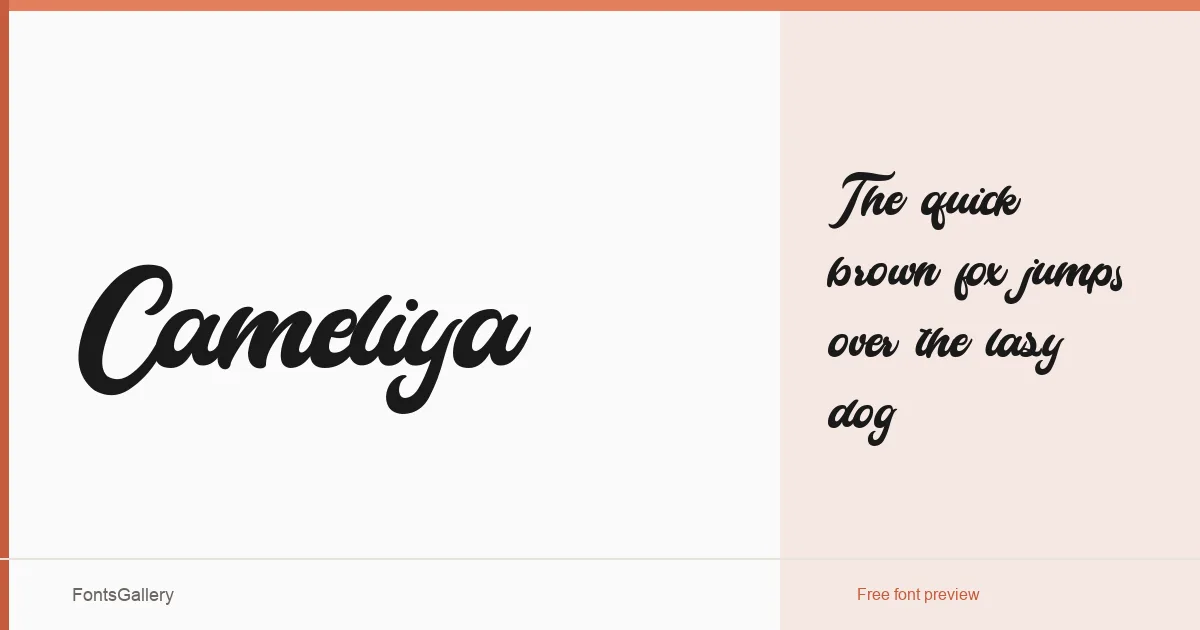
About Cameliya Font
Cameliya is a script typeface from StringLabs that exudes elegance and timeless charm. Rooted in a romantic and vintage sensibility, this font brings a classic sophistication to any design project. Its flowing letterforms make it a standout choice for creatives seeking refined, expressive typography.
Cameliya features graceful, fluid script letterforms that evoke a sense of old-world romance and classic beauty. The elegant curves and vintage-inspired strokes give each character a handcrafted, intimate quality that feels both refined and warmly personal. This typeface strikes a careful balance between decorative flair and legible structure, making it as functional as it is beautiful.
Cameliya is ideally suited for wedding stationery, invitation cards, logos, and branding projects where an elegant and romantic tone is desired, as well as social media graphics that call for a touch of classic sophistication. For a harmonious typographic combination, pair Cameliya with Aresink for an all-script editorial feel, or with Helvetica to create a striking contrast between its ornate flourishes and clean, modern sans-serif lines.